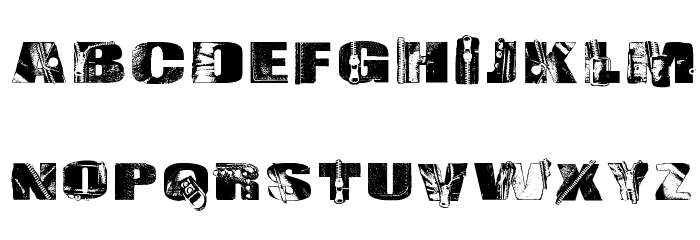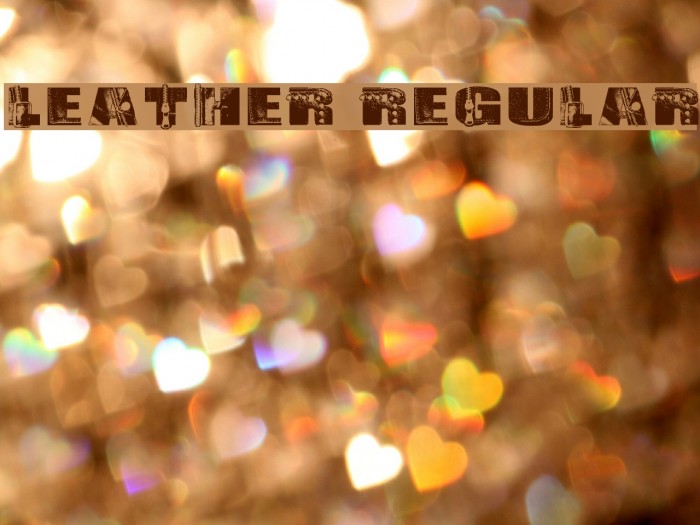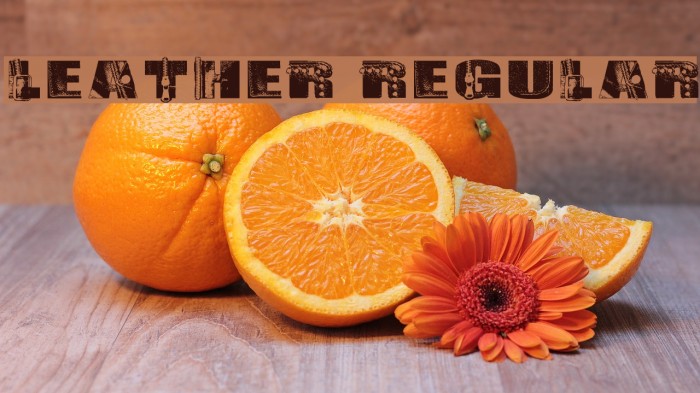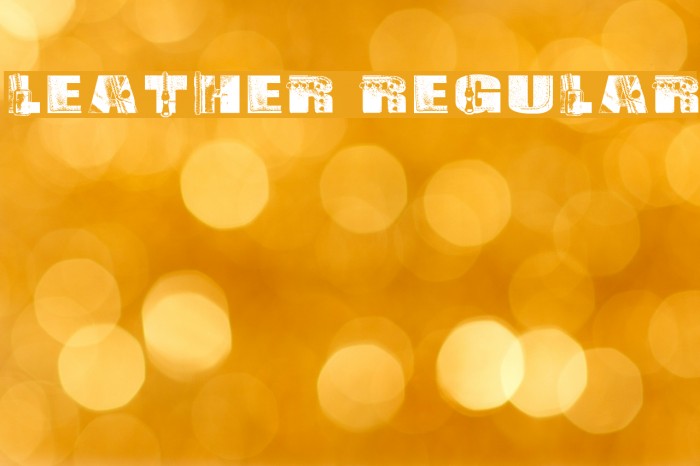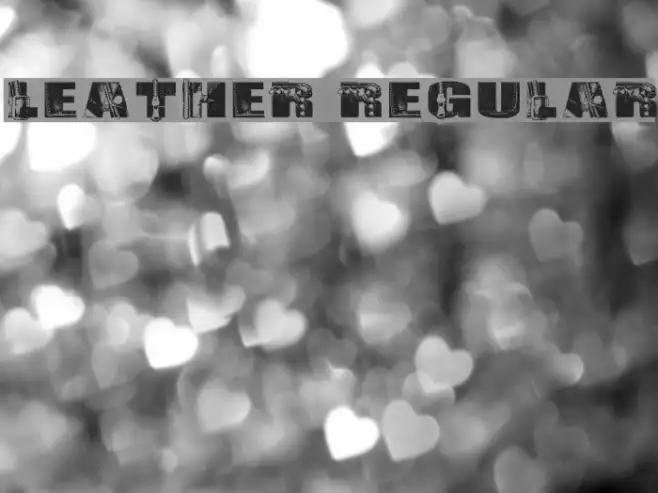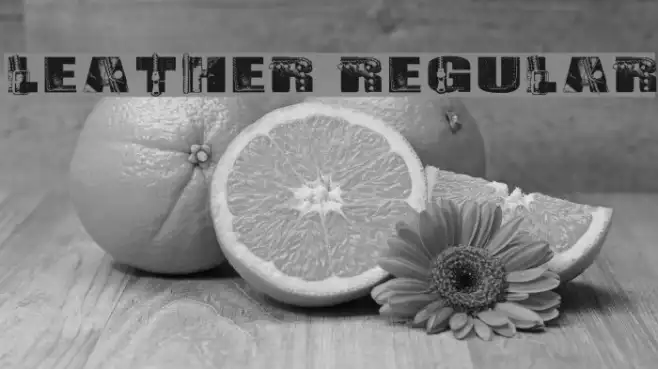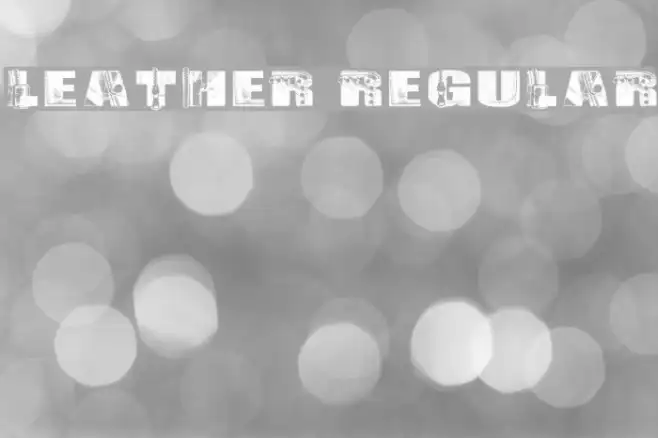
Leather Regular Font
This font features a bold and rugged design with a distressed texture that gives it a worn, vintage look. The uppercase letters are heavily stylized, incorporating elements that resemble leather textures and patterns. The characters are bold and impactful, making them ideal for attention-grabbing headlines or titles. The font lacks lowercase letters and numerals, focusing solely on uppercase characters. The special characters are represented by rectangular placeholders, suggesting a decorative or thematic use. The overall style is distinctly decorative, with a strong emphasis on texture and visual interest.
A bold, distressed font with a vintage leather texture, ideal for decorative use.
- Proposed Projects: Perfect for vintage-themed posters, album covers, or branding projects that require a rugged, textured appearance.
- Overall Style: Vintage, Decorative